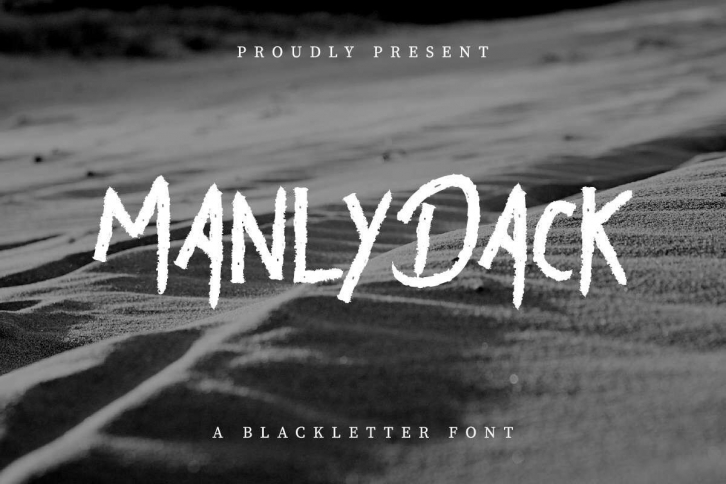
Please welcome Our newest handcrafted font duo : Manly Dack Grunge Font
This is a grunge decorative Font, handcmade here in Indonesia: Bandung-Garut. The artists/designers of this awesome tyeface are Ali and Suci.
Manly Dack Grunge Font is a unique font family with horror dark style. This font has a stunning characters set, perfectly managed with well spaced and kerning. The theme style of this font will be scary, rough, grunge, creepy, scary, game, horror, mysterious and vintage dry brush typeface.
Manly Dack Grunge Font will be great for any projects including : branding, logo, stationery, business card, signage, flyer, brochure etc. Almost all industries will be match for this typeface: games, events, movies, festival, concert, makeup artist, travel, magician, musician etc